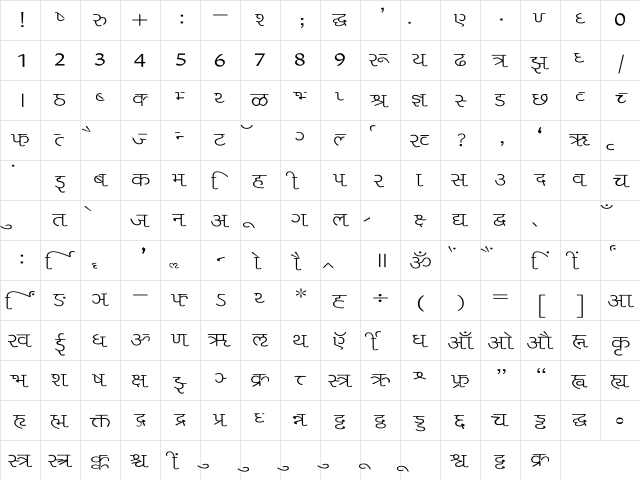
Liza Wide Regular
Design Context for Liza Wide Typeface
Liza Wide offers clean, dependable letterforms without strong stylistic allegiance, making it a practical choice for designers who need flexibility.